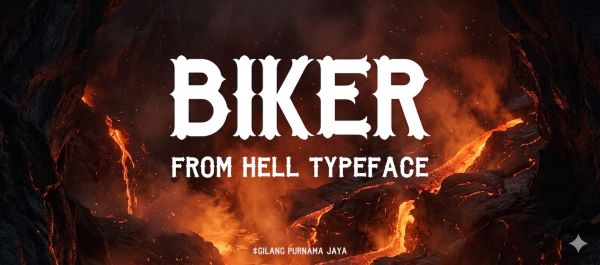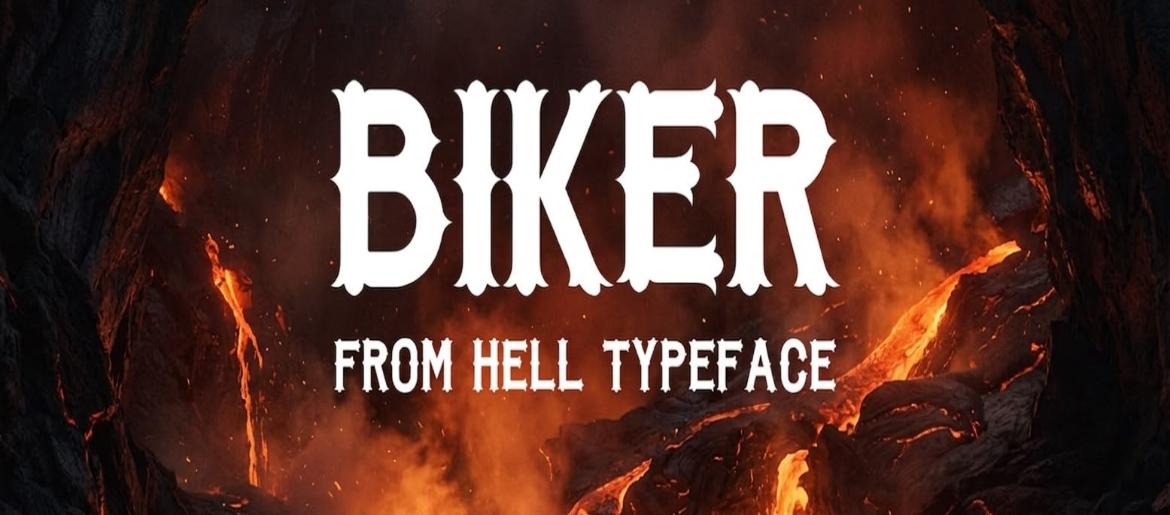
Biker from Hell Font
Biker from Hell by Gilang Purnama Jaya is a thick, all-caps display typeface with a distinctly edgy personality. Its rounded letterforms are punctuated with sharp, pointy spikes that give every word a dark and mysterious presence — making it a natural fit for biker logos, tattoo lettering, signage, posters, and any project that needs to project attitude and raw character. Bold enough to dominate a layout, distinctive enough to be instantly recognisable. Free for personal use.